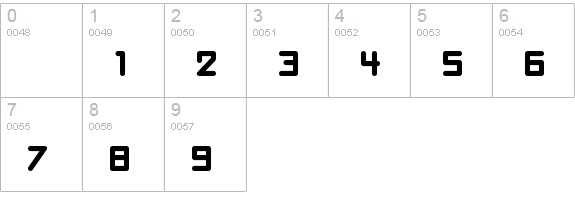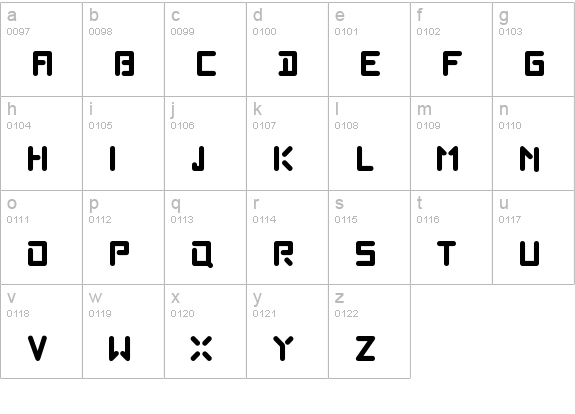
Introducing Poprock font, a versatile and stylish typeface that effortlessly combines the playful charm of pop culture with the timeless appeal of classic rock aesthetics. With its bold strokes and dynamic letterforms, Poprock is perfect for creating eye-catching designs that demand attention. This unique font is available for free download exclusively at FontsMarket.com, where designers and creatives can access a wide range of high-quality fonts for their projects. Whether you're working on a poster, logo, or social media graphics, Poprock offers a fresh and modern twist that will make your designs stand out. Embrace the energy and creativity of Poprock font and take your typography to the next level.